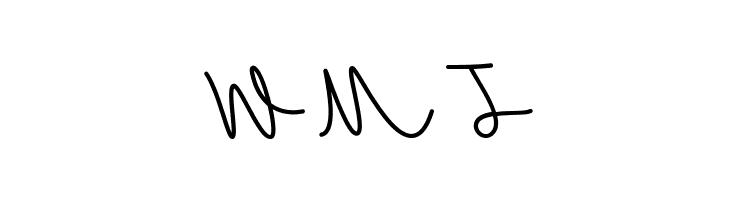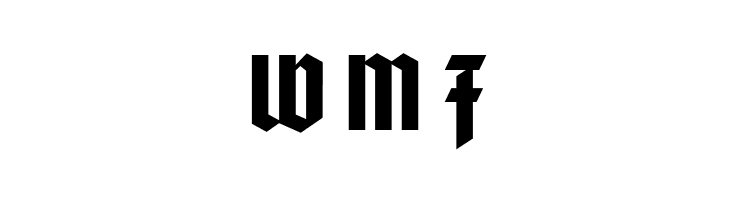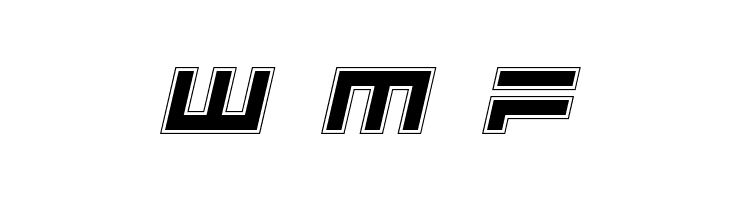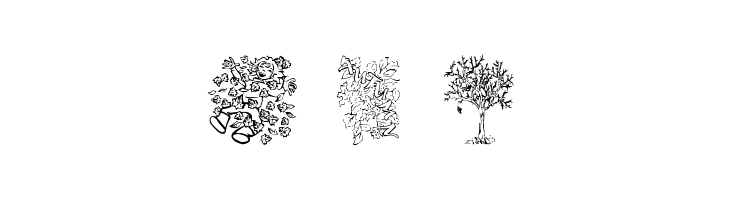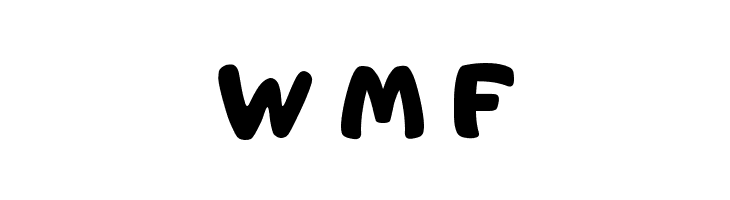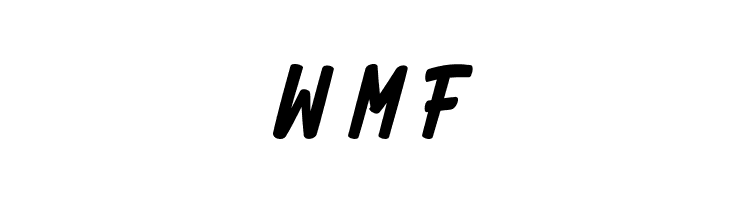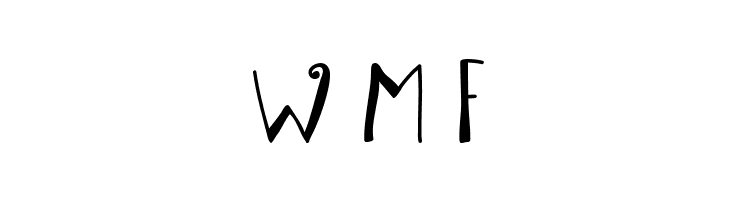
• Austie Bost Wibbly
A whimsical, hand-drawn font with playful embellishments and a casual style.
• AuthenticRatatouille
A bold, cursive font with a playful and dynamic style.
• Autobahn
A bold, Gothic-inspired font with sharp angles and strong vertical lines.
• AutoToy font
• Autumm
• Autumn Breeze
A playful, cursive font with a natural, handwritten style.
• AutumnBreeze
A playful, casual handwritten font with smooth, flowing curves.
• Avenger
A bold, geometric font with a futuristic, digital aesthetic.
• Avenger College
A bold, geometric font with angular shapes and a futuristic style.
• Avenger College Italic
A bold, italicized font with a futuristic, dynamic style and three-dimensional effect.